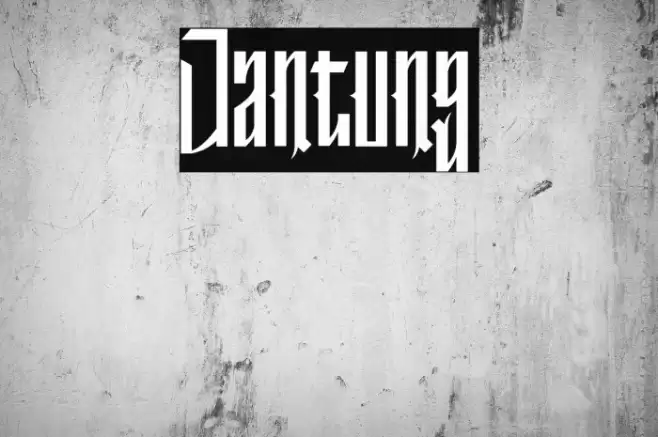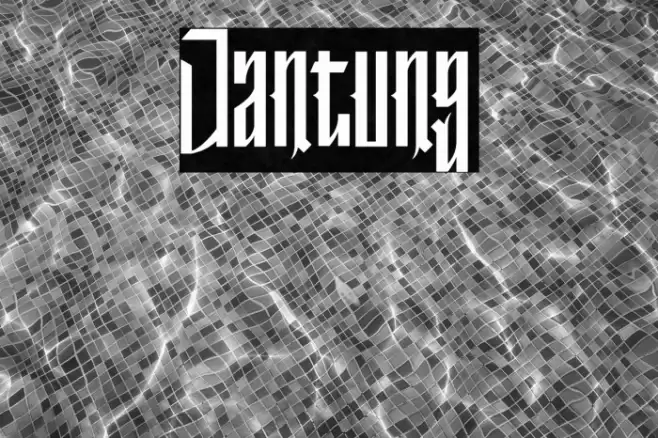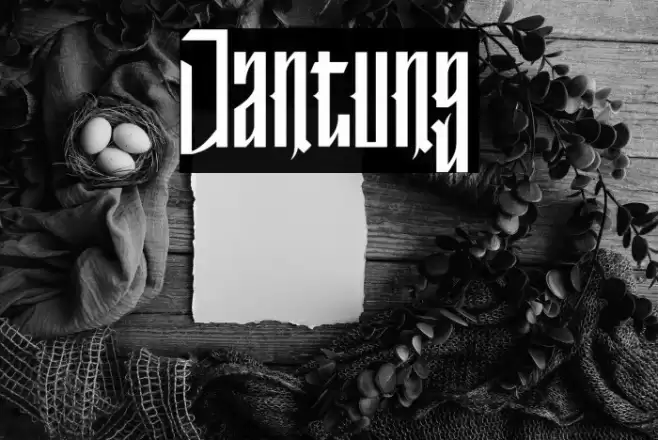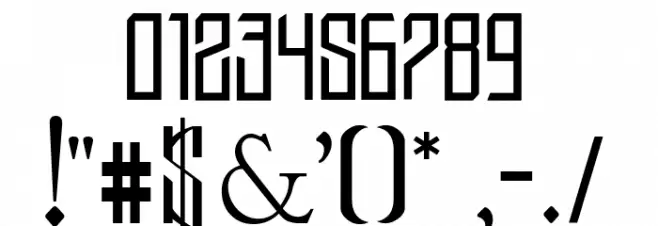
Jantung Font
Jantung Description
This font features a bold, geometric design with sharp angles and a strong vertical emphasis. The uppercase letters are tall and narrow, creating a striking and modern appearance. The lowercase letters maintain the same angular style, offering a cohesive look across both cases. Numbers and special characters follow the same design principles, ensuring consistency throughout. The font's unique style makes it stand out, with a futuristic and edgy vibe that is both eye-catching and memorable.
A bold, geometric font with sharp angles and a modern, futuristic style from Regular fonts.
- Proposed Projects: Ideal for branding, posters, album covers, and any project requiring a modern, edgy look.
- Character Spacing: Tight